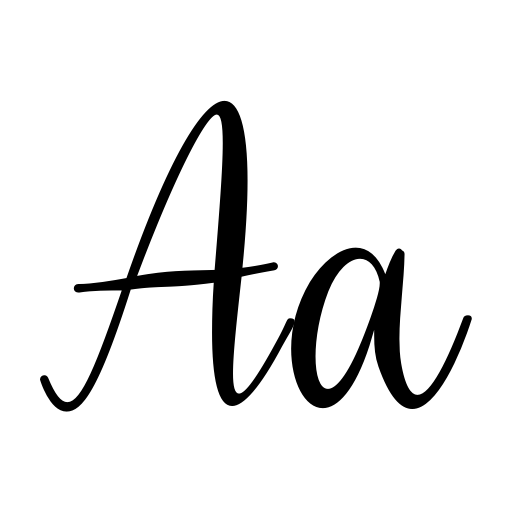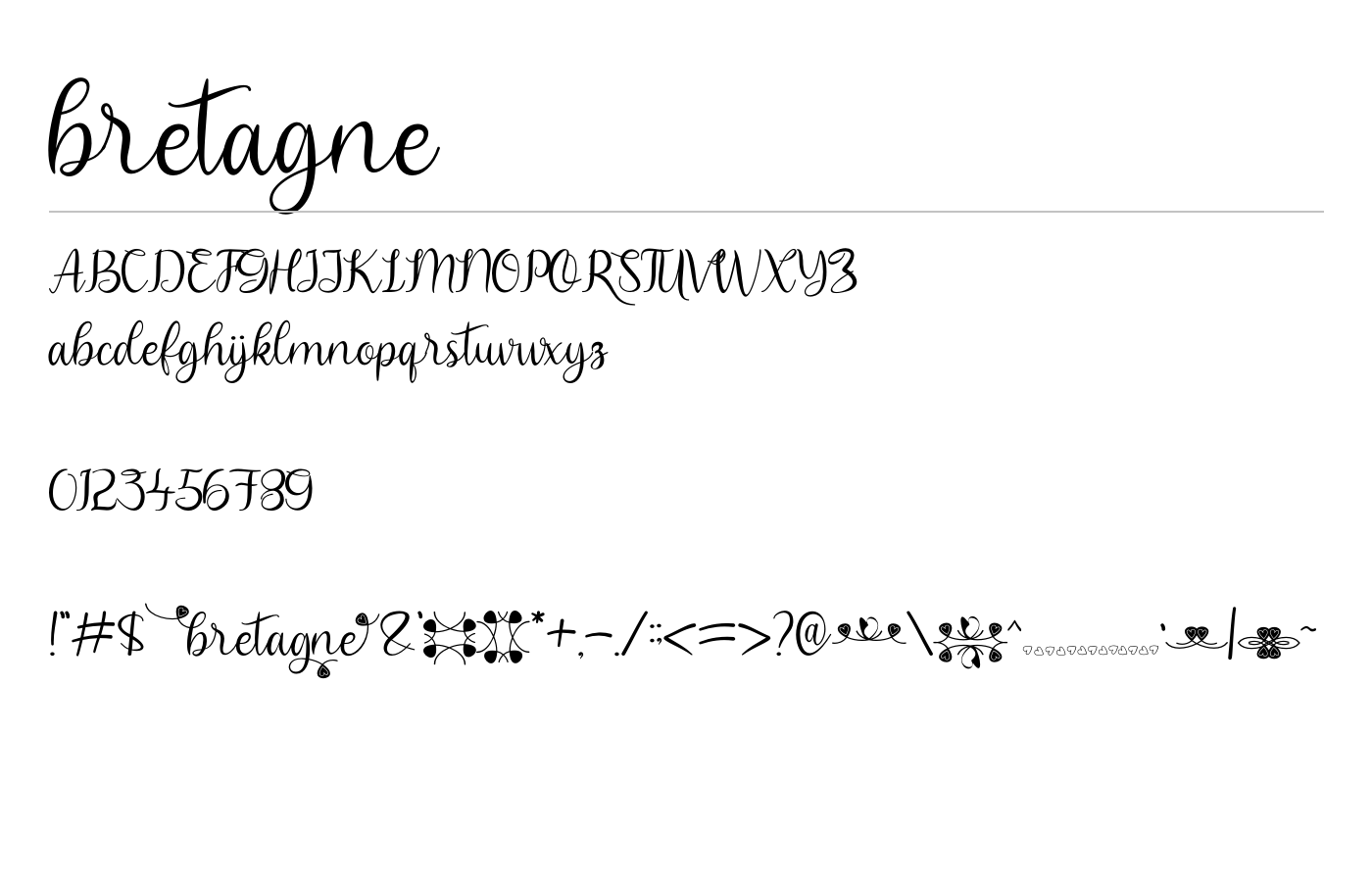
Bretagne is a delicate and elegant script font with a handwritten feel, featuring slender, flowing strokes and charming decorative elements. Its graceful letterforms and whimsical details make it perfect for feminine branding, invitations, and creative projects that seek a romantic or vintage-inspired touch. This font shines in designs where a sophisticated, artistic personality is desired.
bretagne Font
About bretagne Font